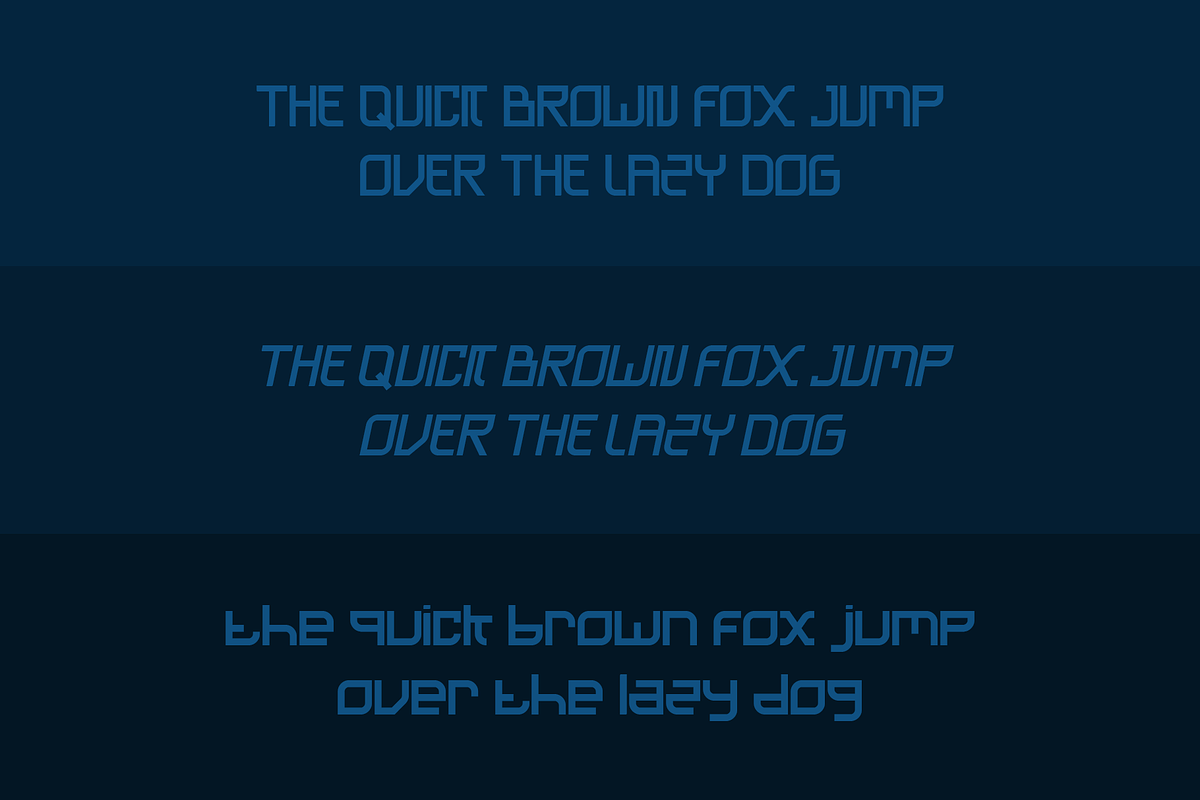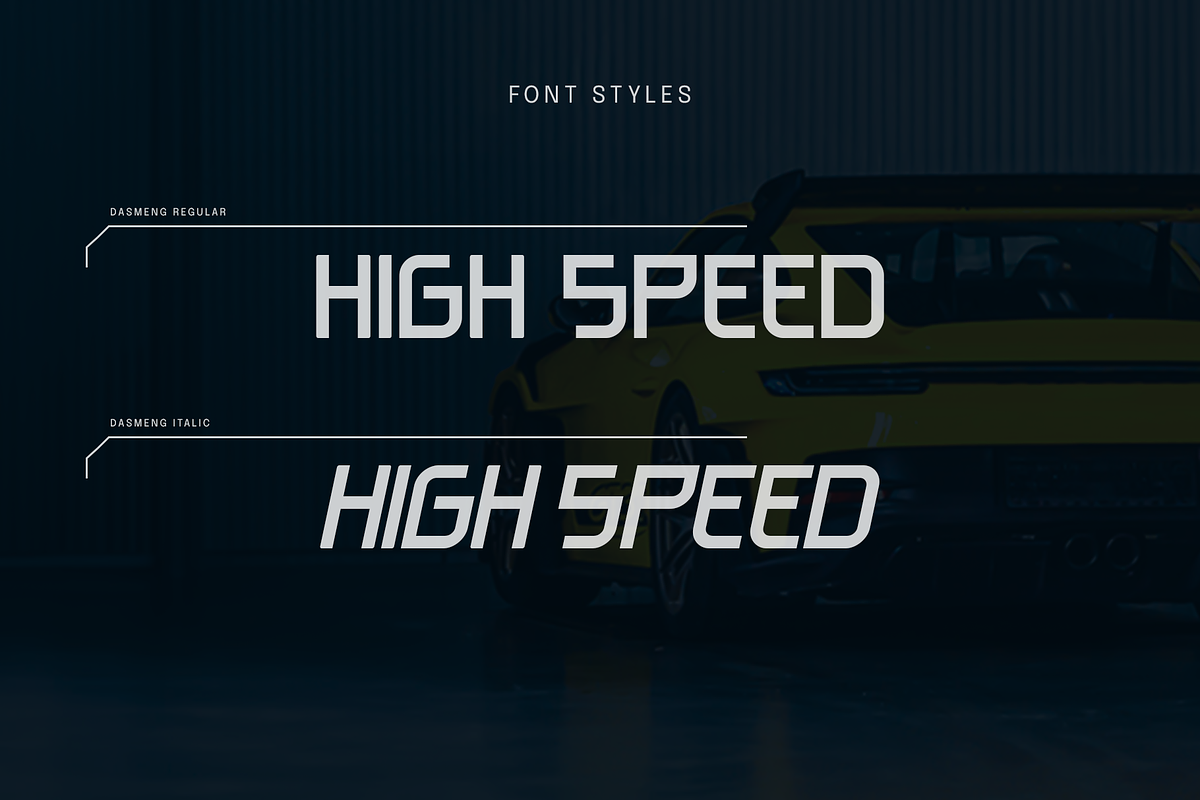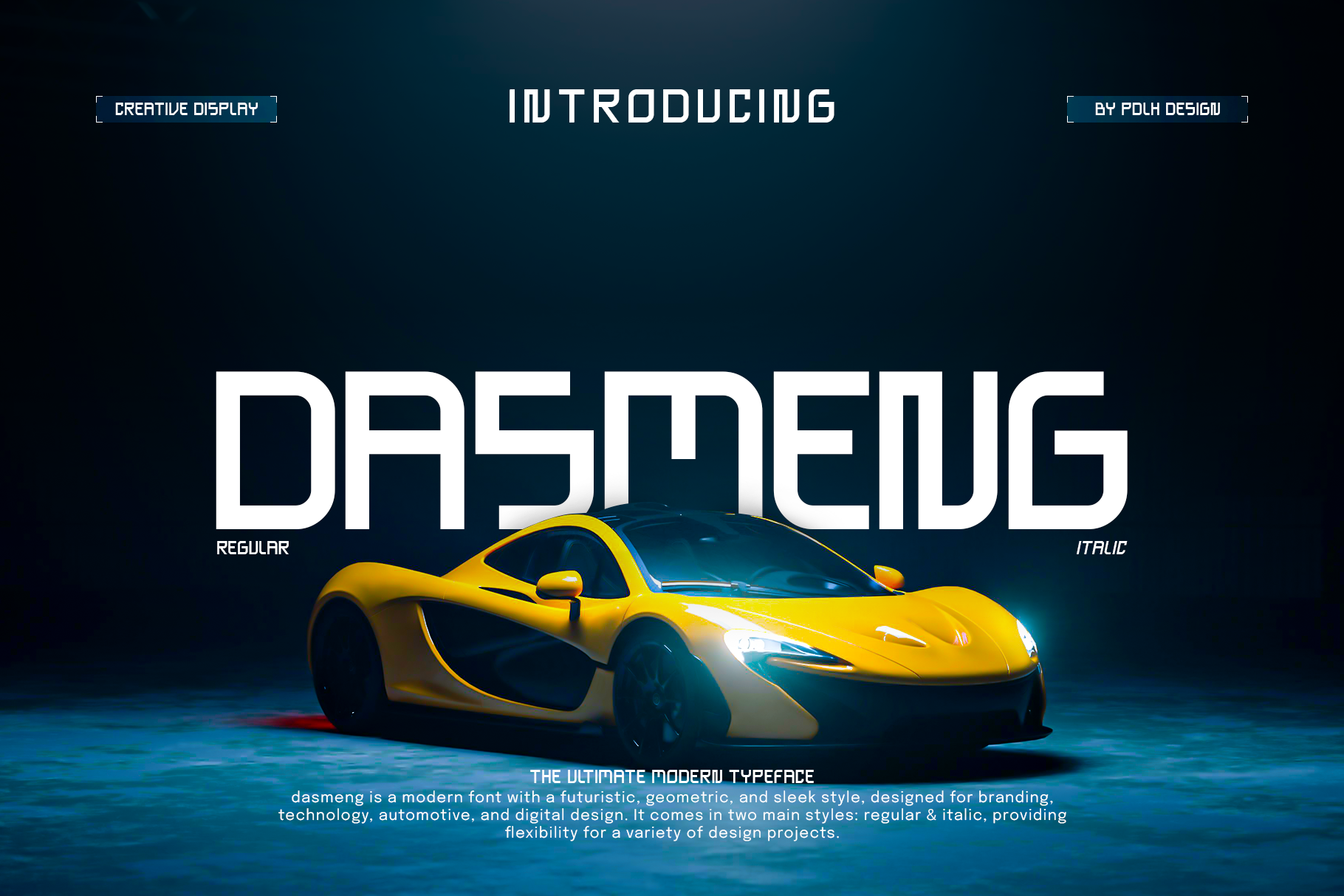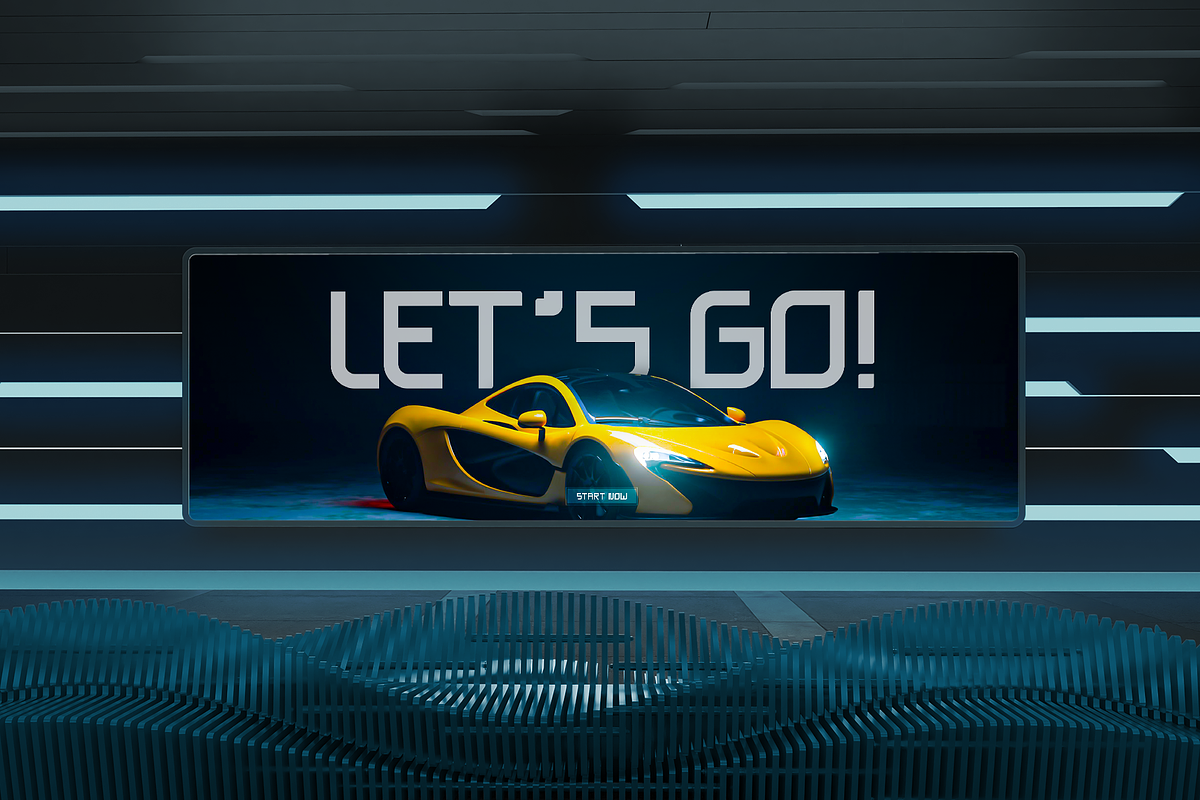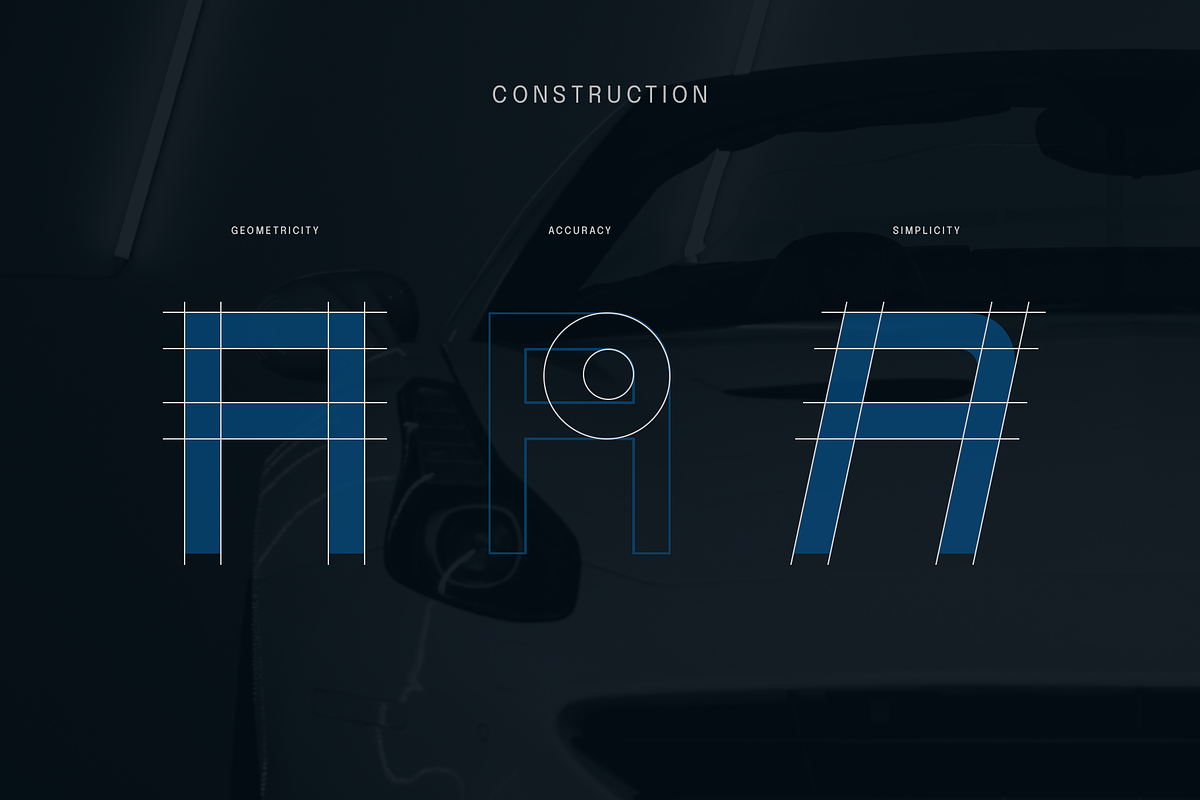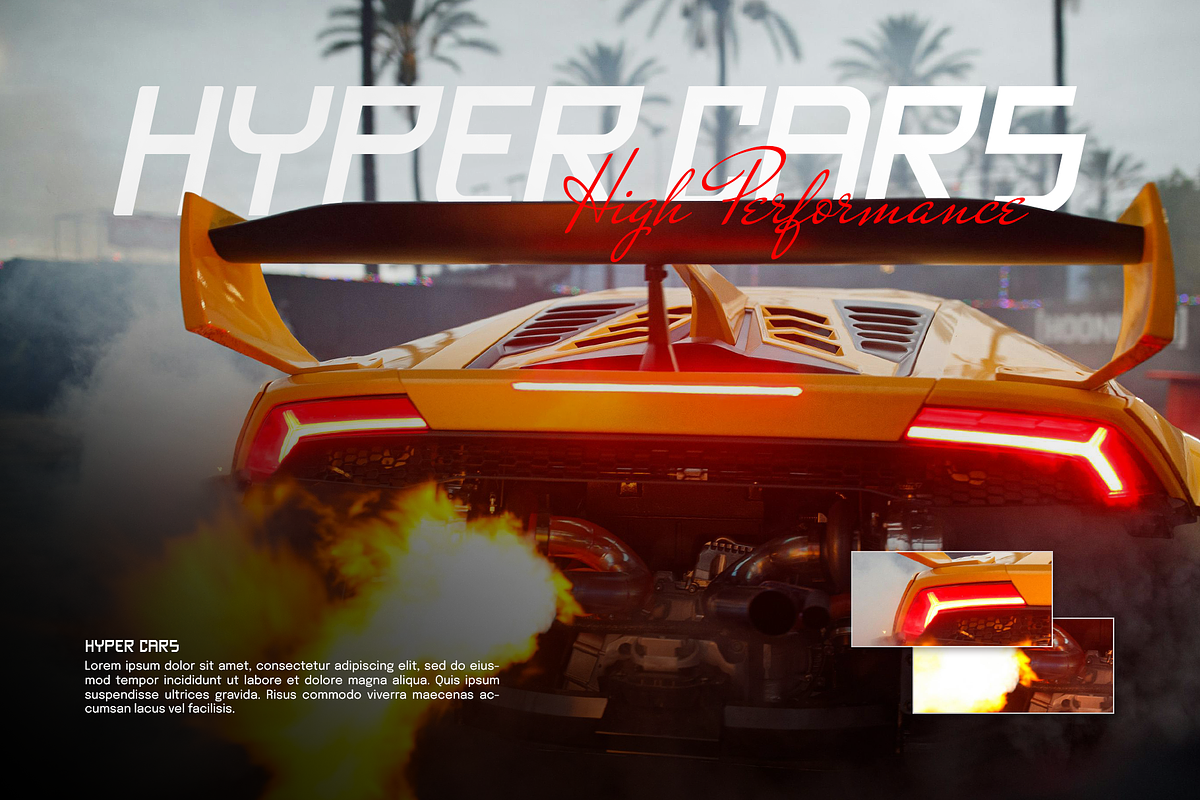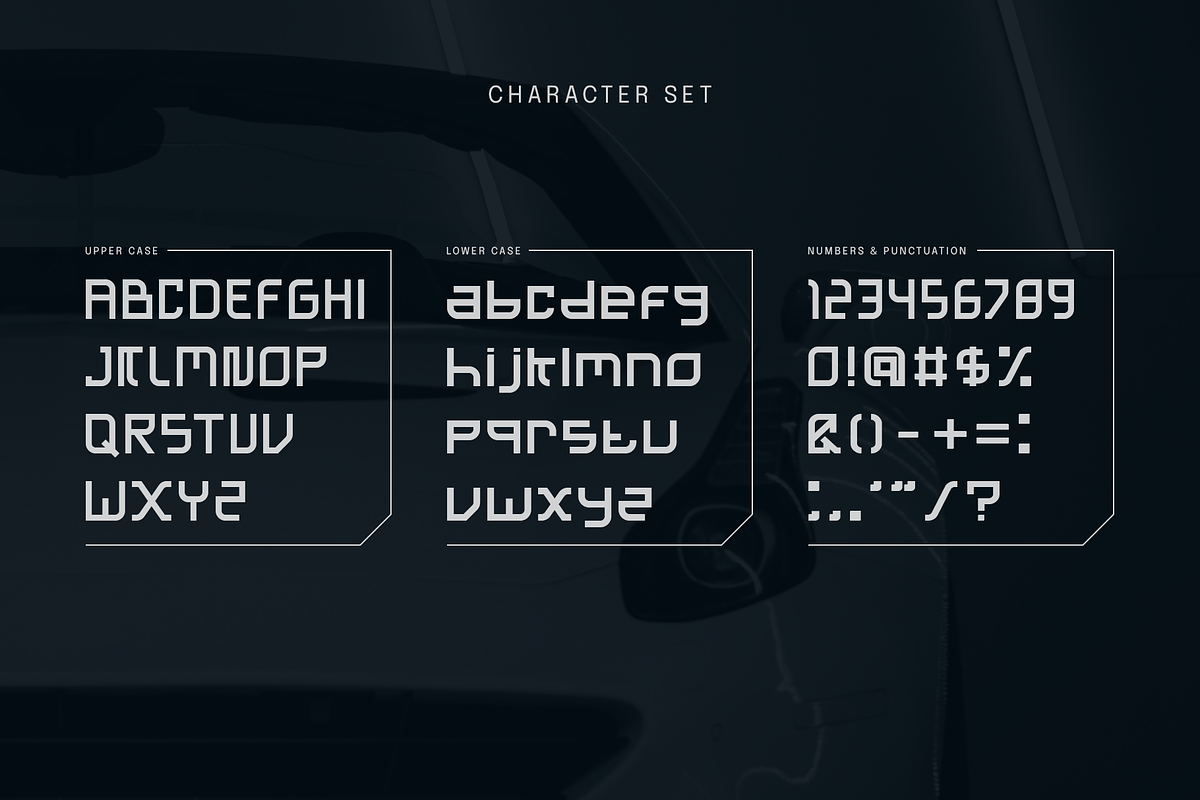
Dasmeng - Futuristic Display Font
Dasmeng is a modern font with a futuristic, geometric, and sleek style, designed for branding, technology, automotive, and digital design. It comes in two main styles: Regular & Italic, providing flexibility for a variety of design projects.
- Regular & Italic Styles
Best for:
- Automotive & Racing Designs
- Gaming & Esports Branding
- Tech & Sci-Fi UI/UX
- Posters, Logos, Merchandise, and More!
Dasmeng is the perfect choice for designers looking to create a bold, futuristic, and high-performance look. Elevate your design projects with the DASMENG font today!